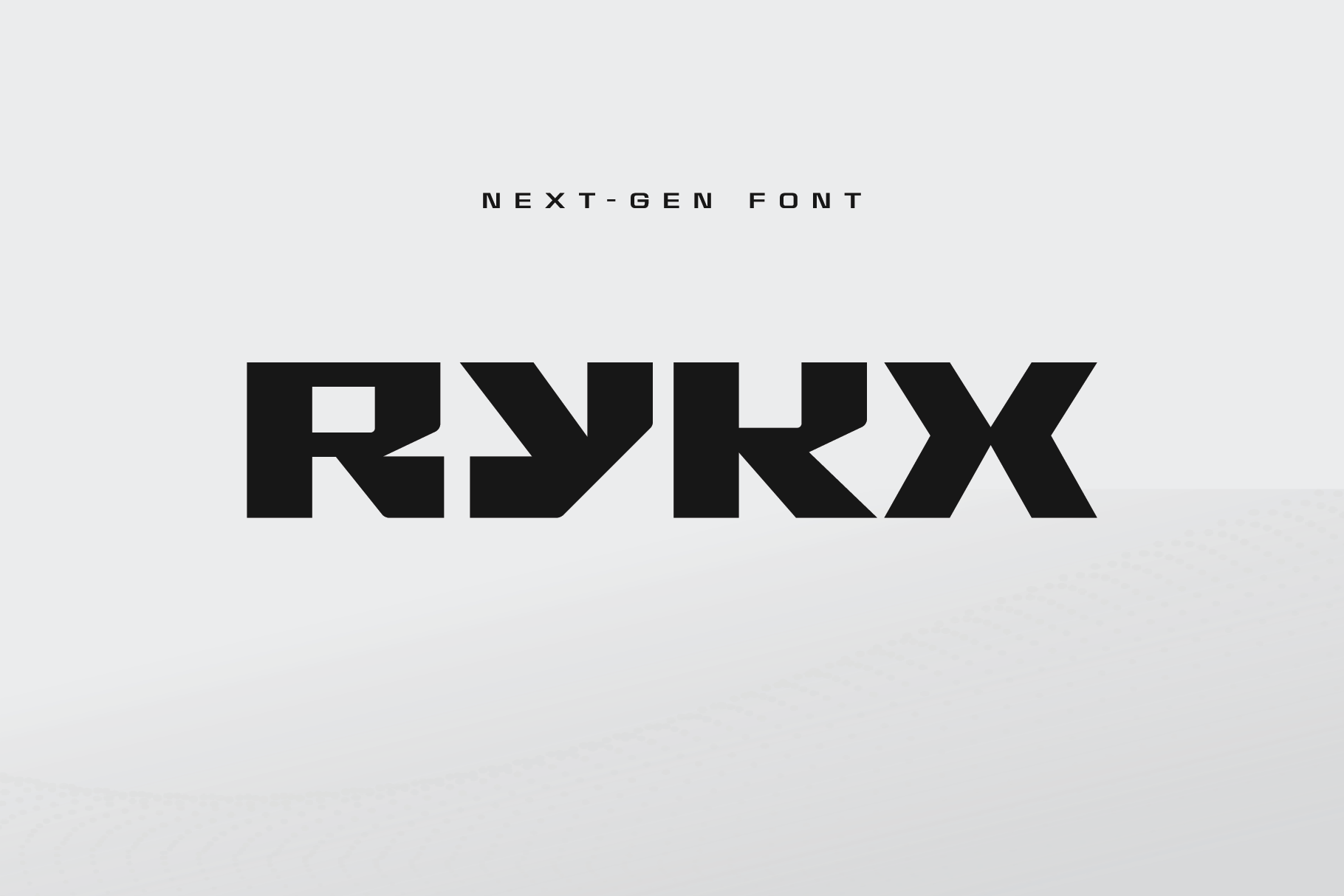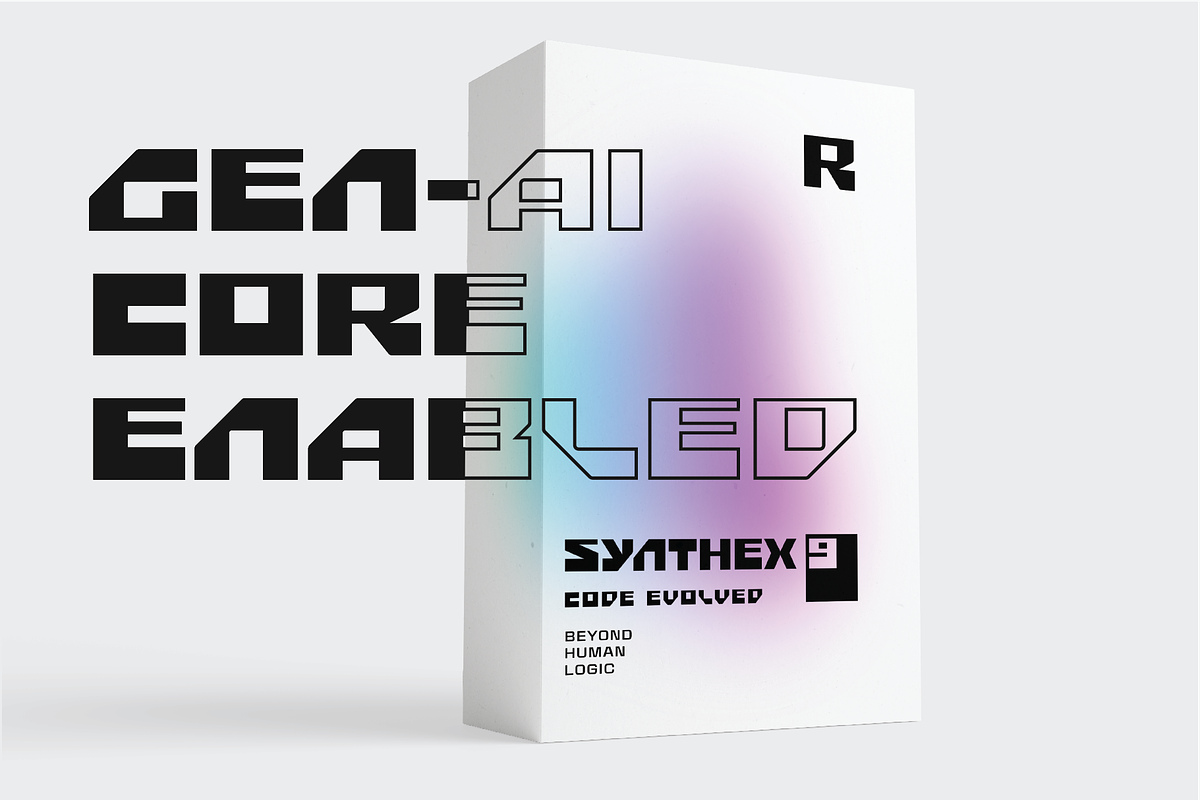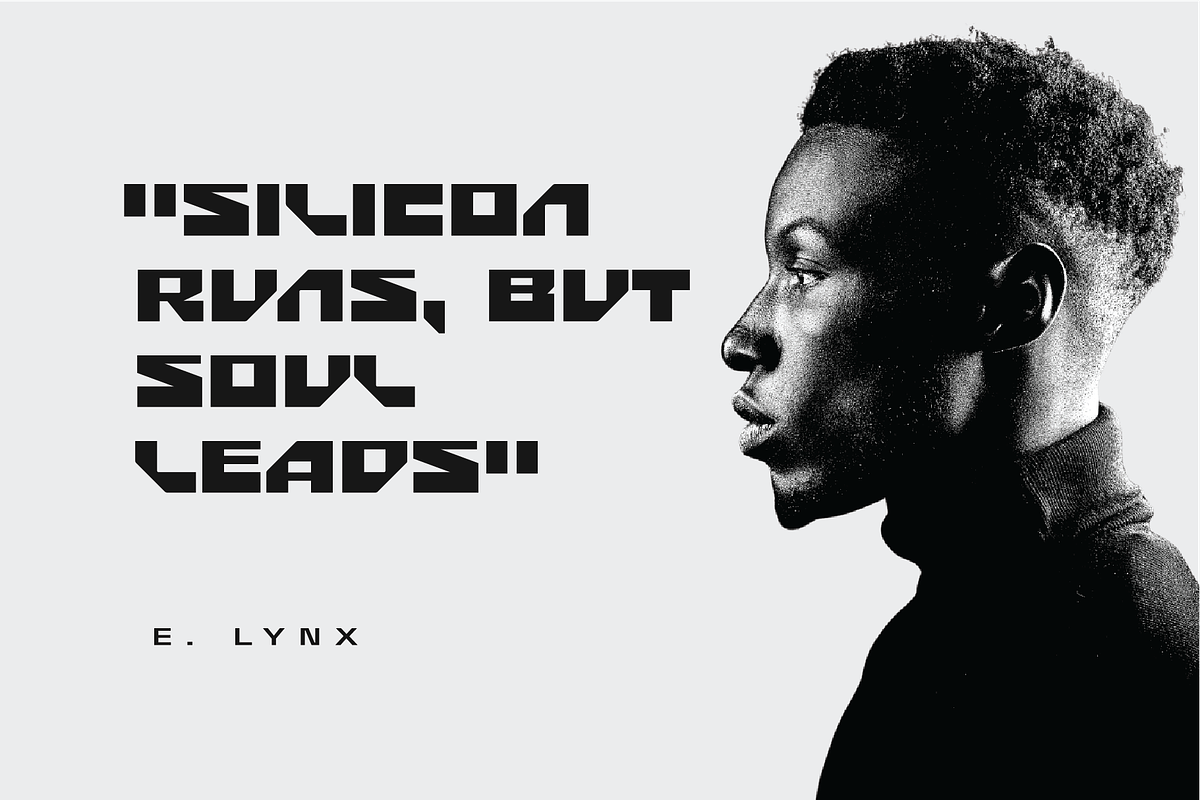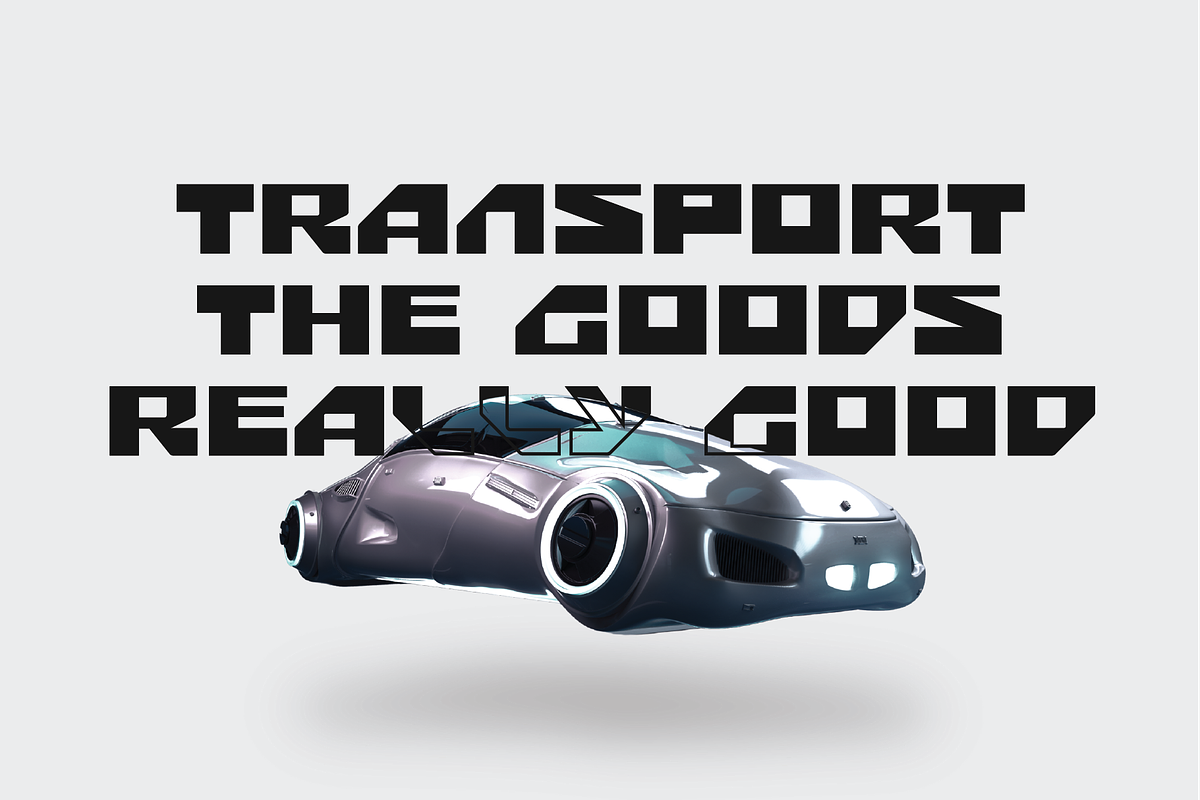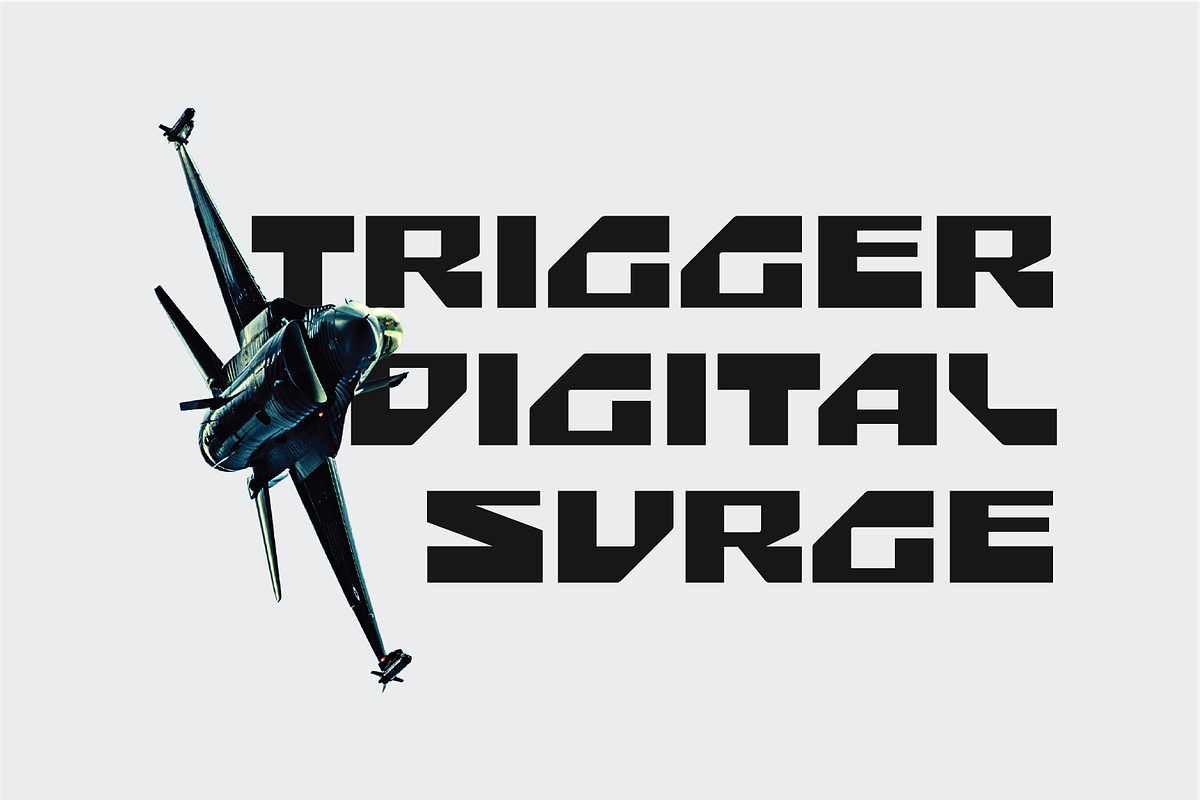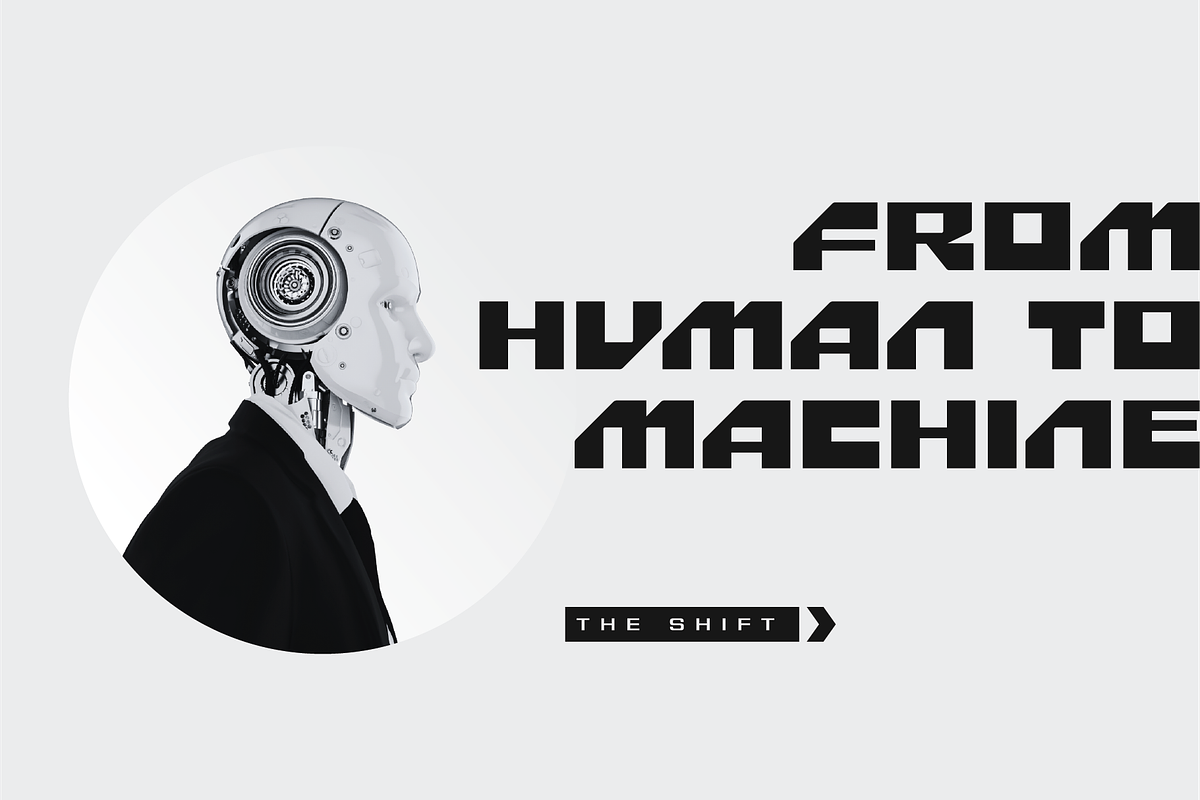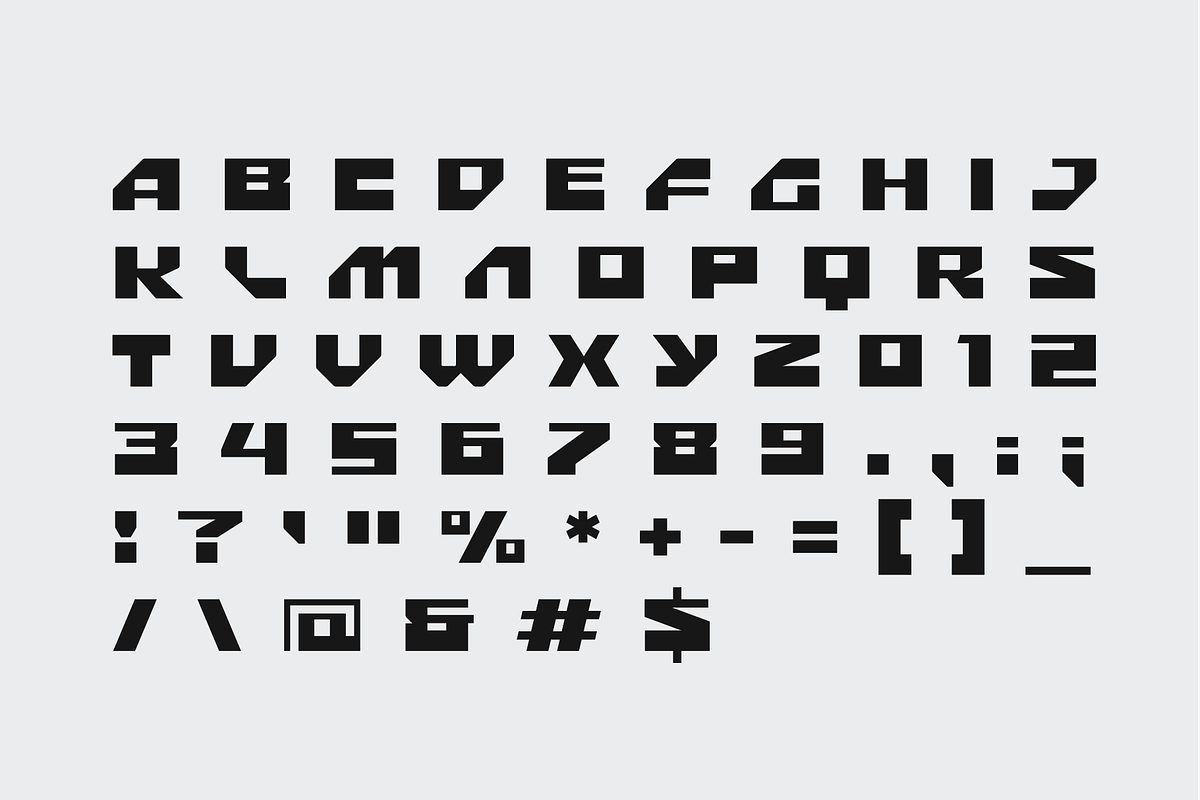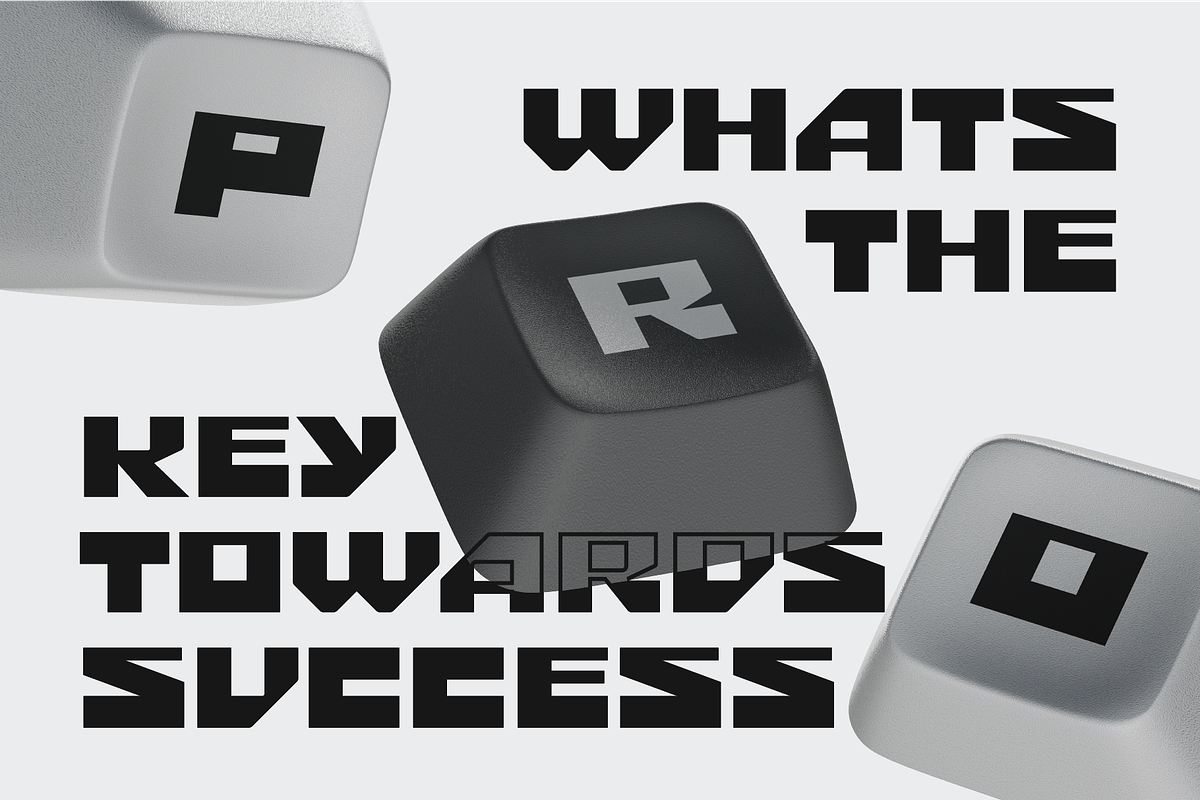
Rykx–Next Gen Bold Display Font
Rykx is a futuristic, bold display font designed for cutting-edge brands, tech startups, gaming titles, and forward-thinking creatives. With its strong geometric angles and modern aesthetics, Rykx brings a powerful, next-gen vibe to your projects like logos, posters, and digital headlines. This futuristic display font is perfect for those looking to make a high-impact visual statement.